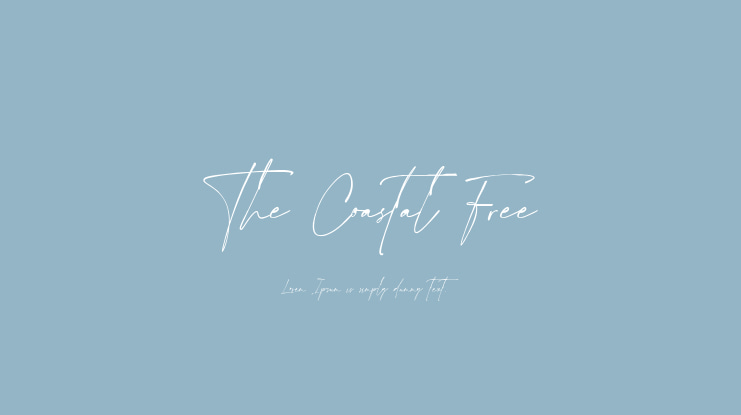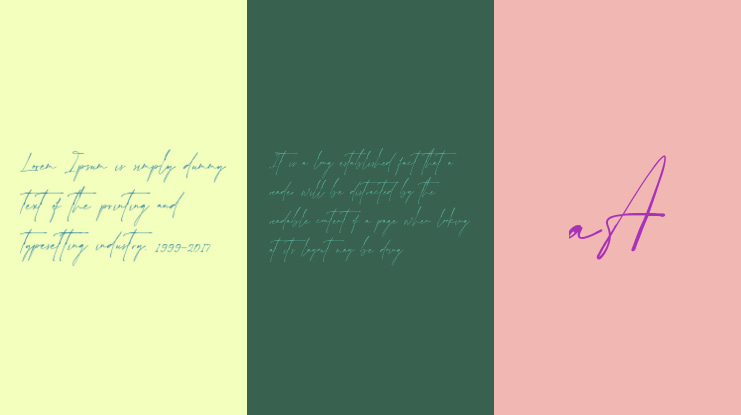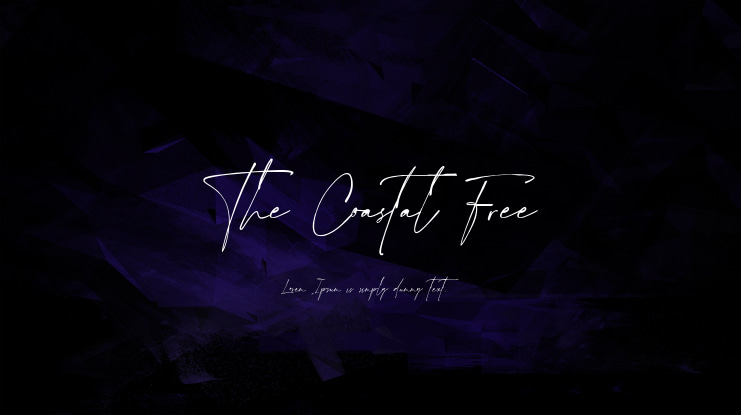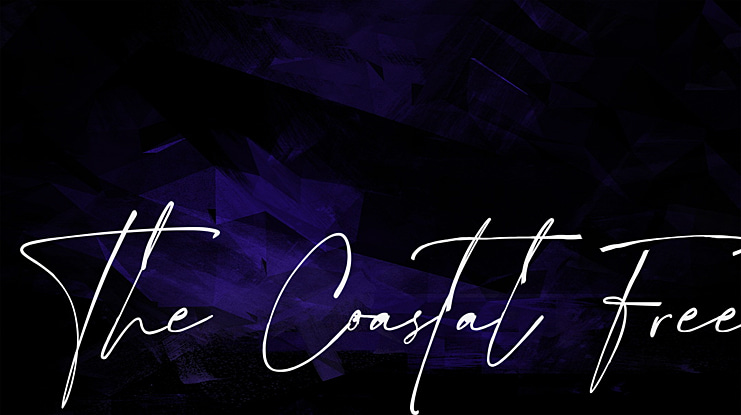
The Coastal Free Font
Luxury handwritten script font with natural styles, Perfect for logos, upscale packaging, wedding invitations, websites, typography quotes, photography watermark, magazine or book cover, and any other projects requiring a handwritten typeface with luxurious touch.